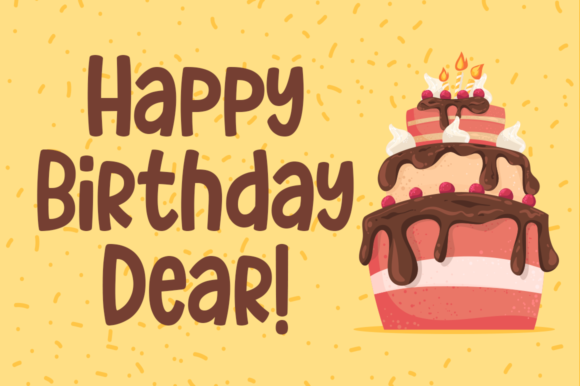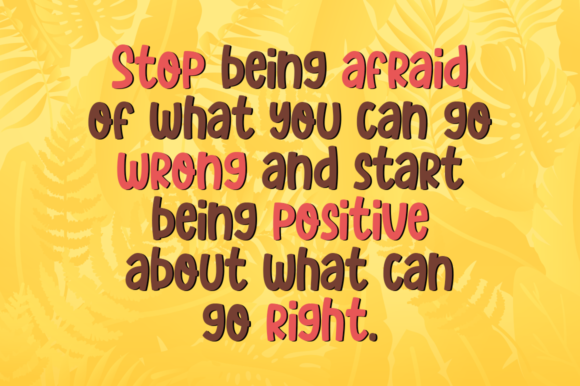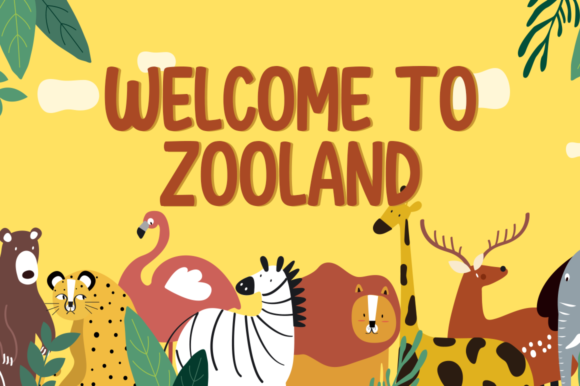
Introduction to Lazy Meow Font
Have you ever been working on a creative project, pouring your heart and soul into it, only to realize that something is missing? That’s when I stumbled upon the Lazy Meow Font, and it was love at first sight. Its playful yet chunky lettering added the perfect touch to my design, making it stand out in a crowd.
As a designer, you’re always on the lookout for high-quality design resources that can elevate your creative ideas. That’s where the Lazy Meow Font comes in – a free download that’s sure to become a valuable addition to your design arsenal. With its transparent background, you can easily overlay it on any image or background, giving you endless possibilities for creative expression.
Whether you’re working on a design project or simply looking to add some personality to your social media posts, the Lazy Meow Font is a game-changer. Its unique style and versatility make it a must-have for any designer, and we can’t wait to see how you’ll use it to bring your ideas to life.
Key Features of Lazy Meow Font
- High-quality, hand-drawn design ideal for creative projects and design resources.
- Unique, playful characters and ligatures add a touch of whimsy to any design project.
- Perfect for use in logos, branding, typography, and other creative projects that require a distinctive, hand-crafted feel.
Honest Review: Lazy Meow Font
I recently stumbled upon the Lazy Meow Font, a quirky design resource that’s perfect for adding a touch of whimsy to your creative project. As a designer, I appreciate high-quality fonts that can elevate my work, and Lazy Meow Font definitely delivers.
Here are some things that work well with the Lazy Meow Font:
- ✨ Unique and playful design that’s perfect for creative projects
- ✨ Clear and easy-to-read characters, even at small font sizes
- ⚠️ Limited font styles and weights available (only a few options)
- ⚠️ May not be suitable for formal or professional projects due to its playful design
Overall, I’m impressed with the Lazy Meow Font. While it may not be perfect for every project, it’s a great design resource for anyone looking to add a touch of fun and whimsy to their work. With its high-quality design and transparent background, it’s a must-have for any designer’s toolkit.
For the most out of the Lazy Meow Font, try pairing it with other playful fonts or using it in bold, eye-catching headings. The Lazy Meow Font is versatile and can be used in a variety of creative contexts.
The Lazy Meow Font is perfect for designs that require a touch of personality, such as social media graphics, blog posts, and marketing materials. Its high-quality design and transparent background make it a great choice for designers looking to add a unique element to their creative project.